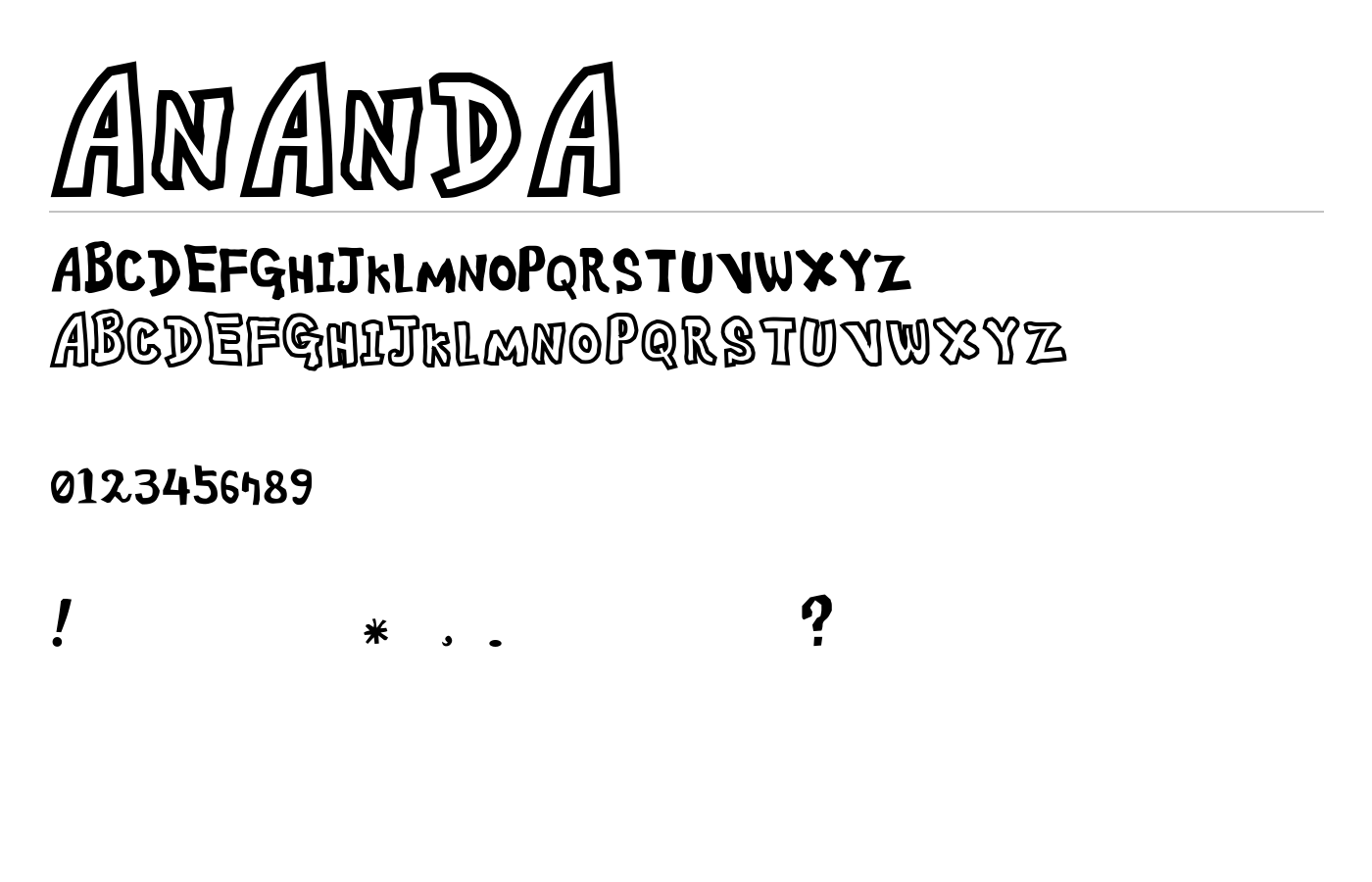
Ananda is a playful, hand-drawn sans serif font characterized by irregular, slightly wavy letterforms that evoke a casual, friendly feel. Its uneven strokes and quirky shapes make it ideal for informal designs such as children's books, creative posters, and fun branding where a unique, approachable personality is desired. This font shines in headline and display use, adding lively charm and individuality to any project.